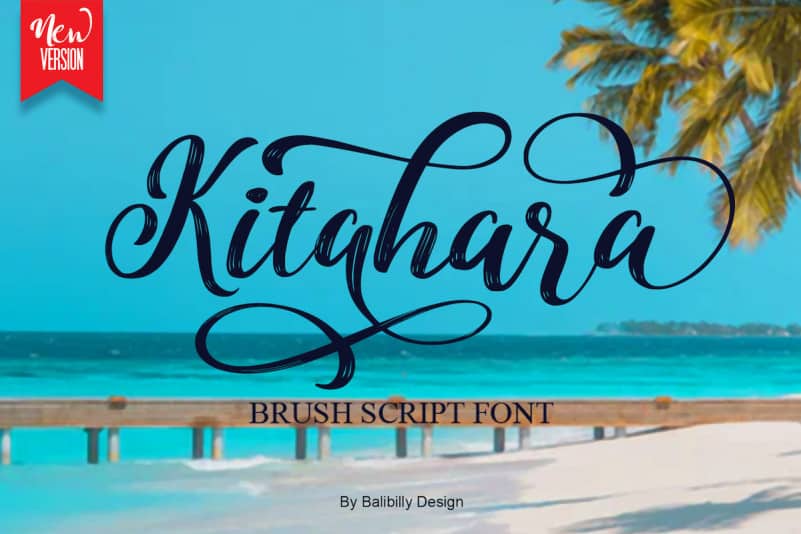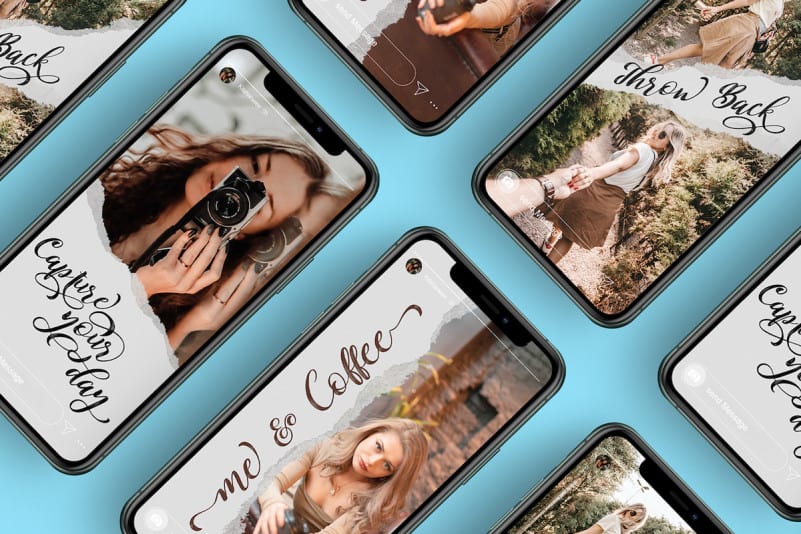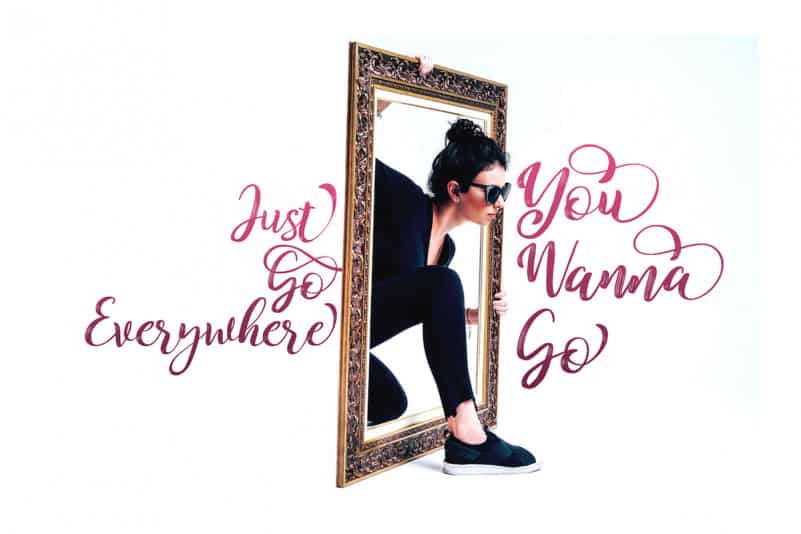
Kitahara Brush Script Font
Kitahara Brush Script Font bridged by the previous version of Kitahara Script which is adopting a clean and casual version of script typeface and now Kitahara comes with a different texture, but still flexible shape like before.
The ability of this font is perfect for all content on any platform and exactly standing-on typeface blending with your beautiful work.
Kitahara brush including stylistic alternate, special Character, and double word ligature.
Touch up your work with this typeface, because we build the shape perfectly fit for headline and paragraph text.
Kitahara Brush version provides a perfect balance of natural captivating lettering for your design projects.
Kitahara Brush version is also suitable for use in invitations, digital content, like Instagram posts, youtube videos, Facebook pages, branding sets, and more.
* Stylistic alternate & Swash
* Ligature